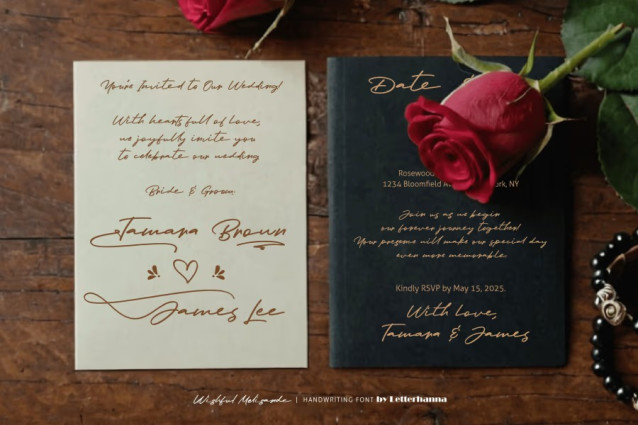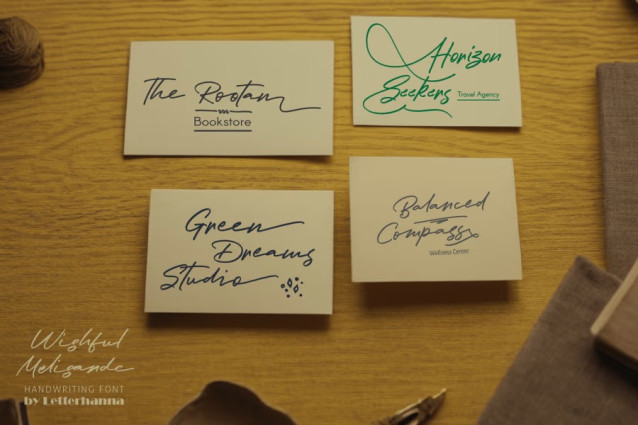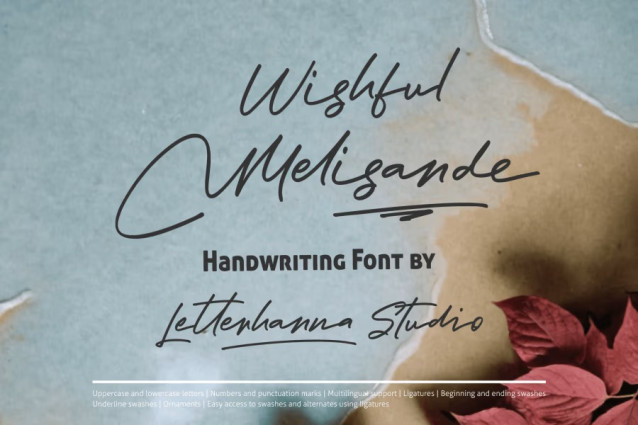
Wishful Melisande Handwriting Font
Wishful Melisande Handwriting Font a graceful and enchanting handwriting script font that captures the beauty of fluid strokes and delicate curves. Designed for those who appreciate elegance, this font blends natural hand-drawn charm with a touch of sophistication, making it perfect for branding, invitations, and artistic projects.